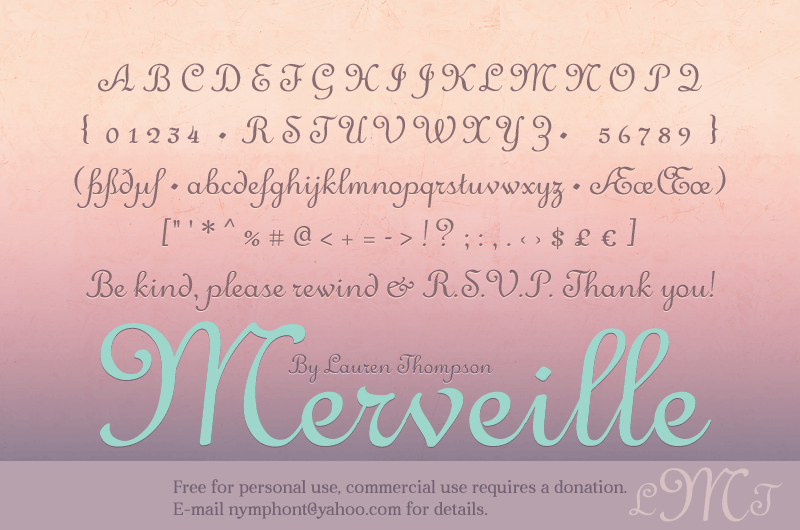
Merveille
This font is beautiful but it looks exactly like the "French Script MT" Font ... :/
I like it ^_^
That one goes directly to my collection of typefaces